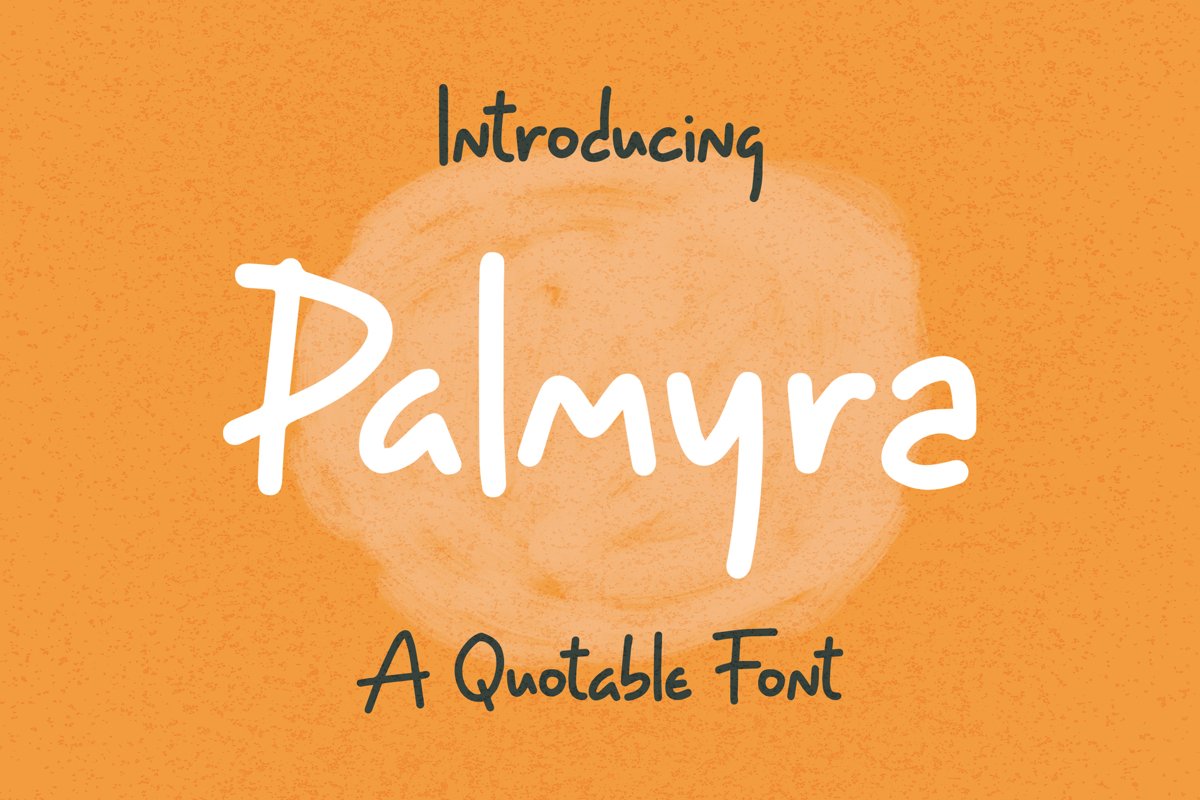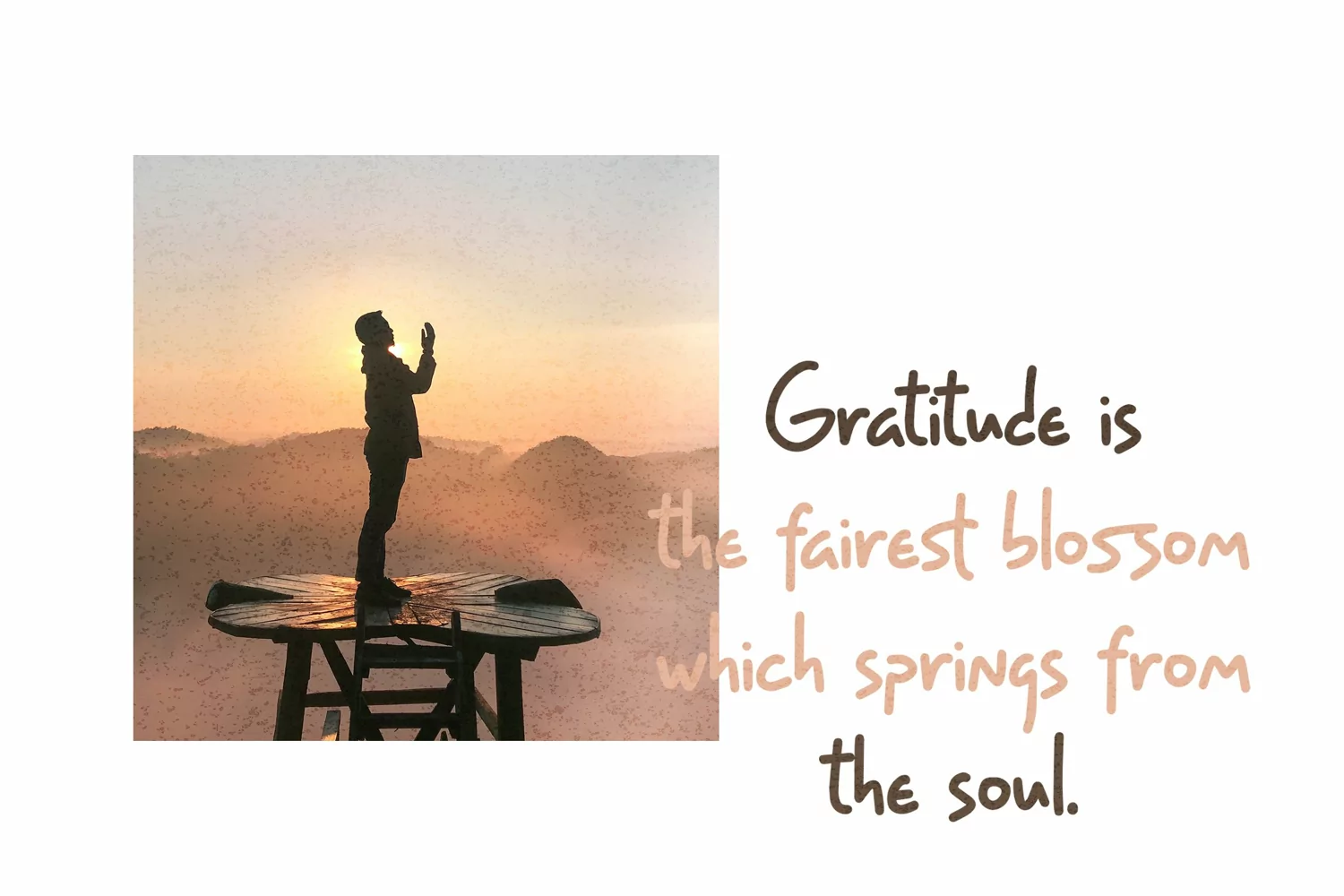
Palmyra - Quotable Font that contain lowercase, uppercase, symbol, and also support multi language. There’s a lot ligatures in this font. This Font also comes with ligatures, alternates and many more. this font suitable for fashion, branding, catalog and other design what you want.